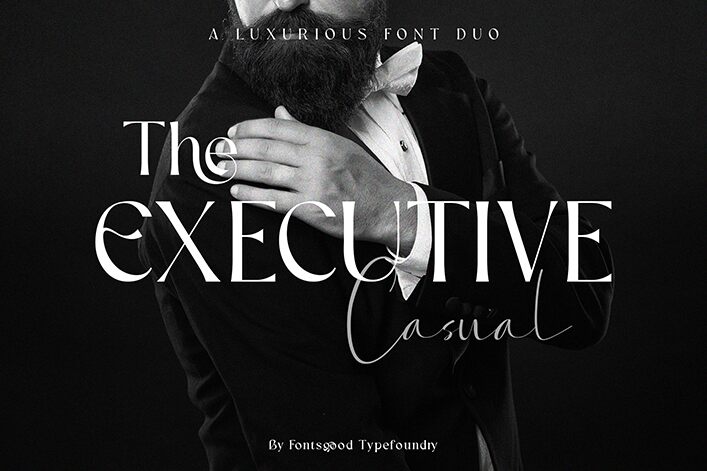
The Executive Casual Serif font by Fontsgood beautifully combines elegance, smoothness, and casual charm. Its sleek aesthetic and graceful curves radiate sophistication and class, making a distinct impression. This free serif font is designed to elevate any project with its modern, professional presence that effortlessly captures attention.
Ideal for branding projects, logos, posters, packaging designs, websites, digital artwork, magazine covers, business cards, brochures, social media graphics and product design; this text fits seamlessly into every platform - from printed to visual content!